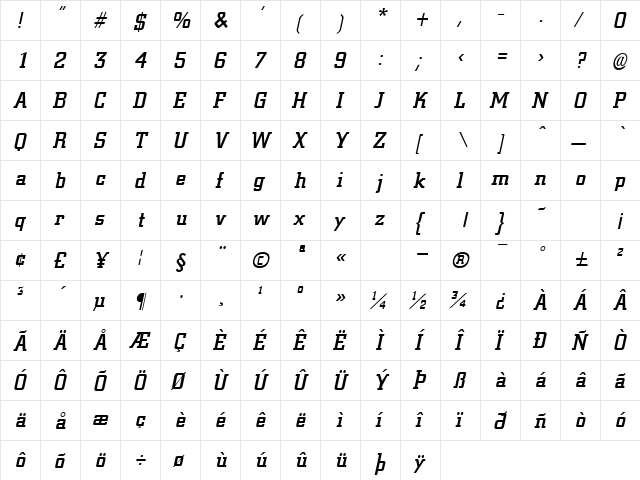
GE Civlized Bold Italic
Design Context for GE Civlized Typeface
GE Civlized offers clean, dependable letterforms without strong stylistic allegiance, making it a practical choice for designers who need flexibility. The dynamic lean of this cut emphasises speed and emphasis in any layout. Its bold stroke weight gives it real presence on the page.